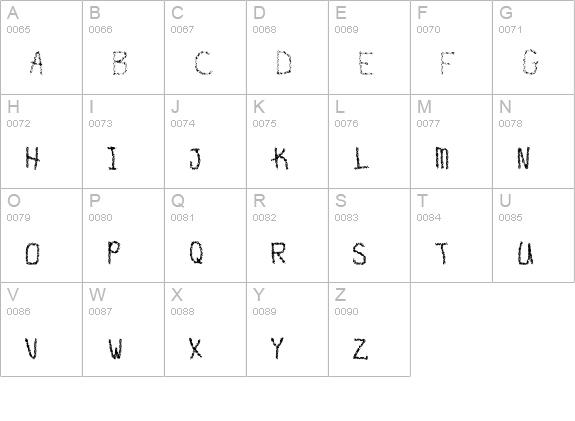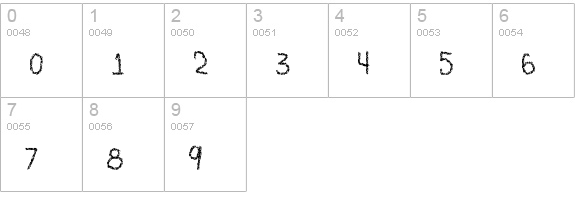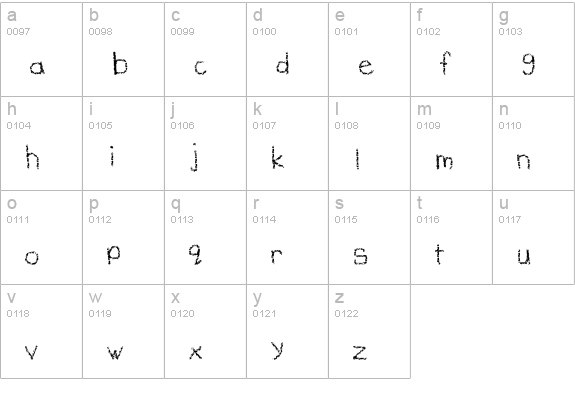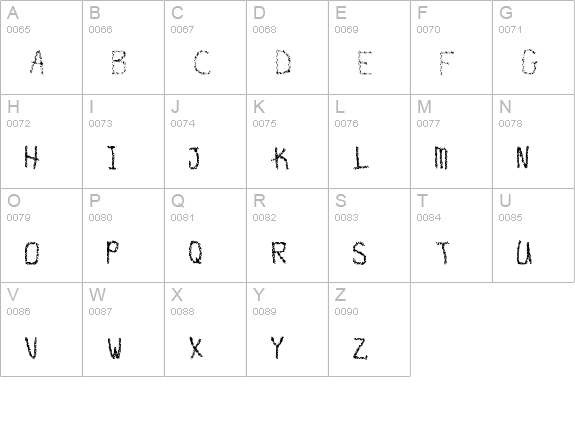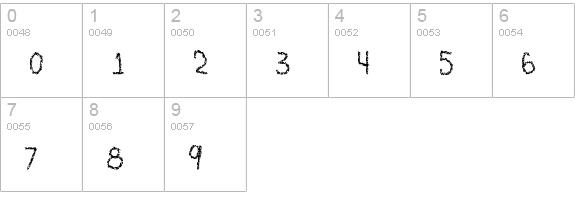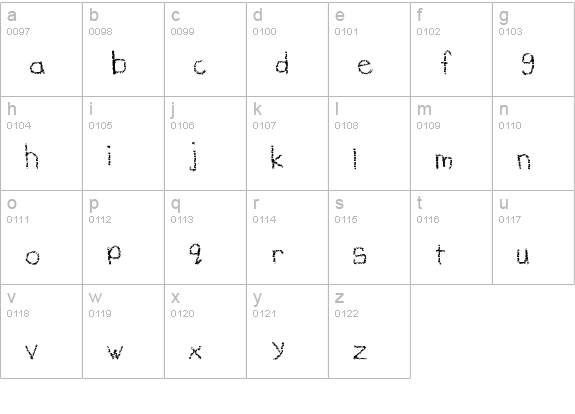
Billy Bear's Crayons Font Details
Billy Bear's Crayons font is a whimsical and playful typeface that captures the imagination of children and adults alike. With its charming hand-drawn style and vibrant colors, this font brings a sense of fun and creativity to any project. Each letter looks like it was colored in with a crayon, adding a unique and artistic touch to your designs. Perfect for children's books, posters, invitations, and more, Billy Bear's Crayons font adds a touch of whimsy and warmth to your projects. Whether you're creating a birthday card for a little one or designing a playful logo for a toy store, this font is sure to make your text pop. Best of all, Billy Bear's Crayons font is available for free download at FontsMarket.com. So go ahead and unleash your inner child with this delightful and imaginative font that is sure to bring joy to your designs.